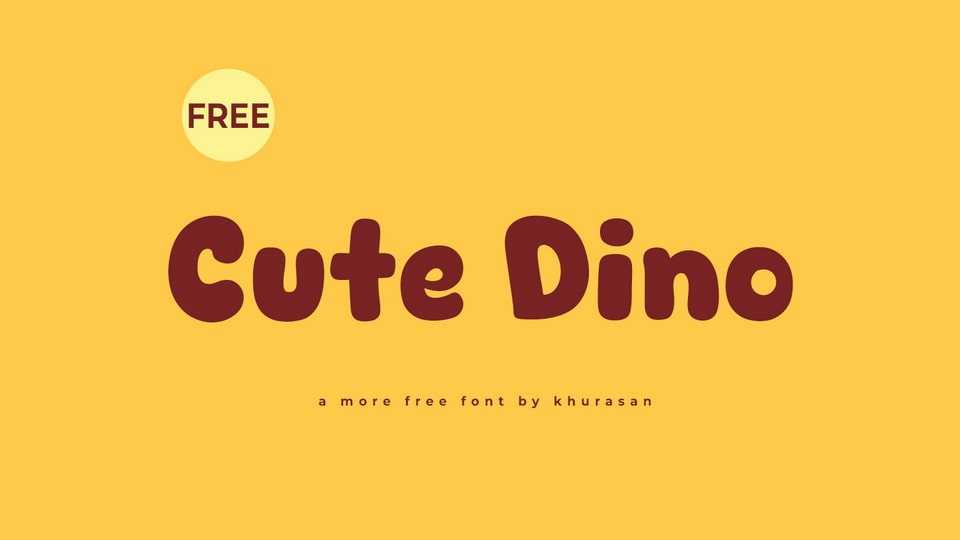
Download Cute Dino font, a cute and smooth hand-drawn cartoon typeface that exudes charm and playfulness. Cute Dino font is carefully crafted with gentle curves and soft lines, creating a delightful typographic experience reminiscent of doodles brought to life.